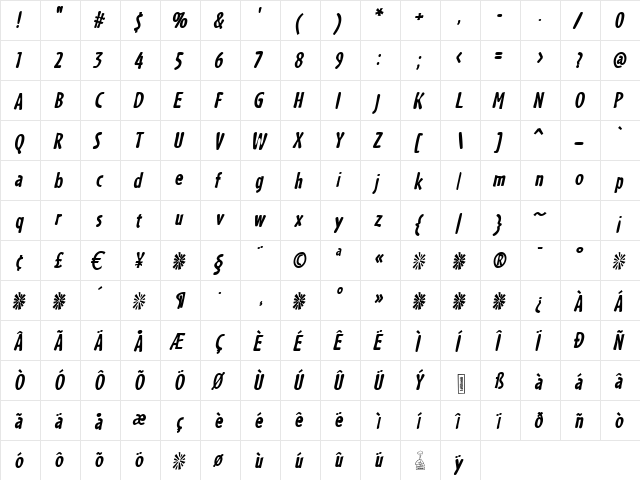
Cafecoco BlackItalic Font Preview
Cafecoco BlackItalic
Cafecoco BlackItalic Font Details
| Style | BlackItalic |
| Copyright | 98 Sander Kessels Based on Cafetaria 93, Tobias Frere Jones. Designed by Tobias Frere Jones. Produced by The Font Bureau, Inc. |
Design Context for Cafecoco Typeface
Cafecoco offers clean, dependable letterforms without strong stylistic allegiance, making it a practical choice for designers who need flexibility. Its italic angle brings a sense of urgency and motion to the letterforms.